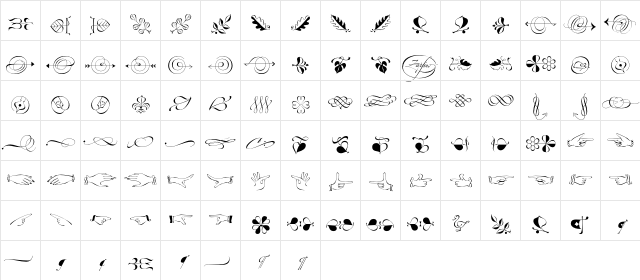
Zapfino Extra LT Ornaments
Design Context for Zapfino Extra LT Typeface
Zapfino Extra LT is built around its visual character rather than neutral utility — its distinctive forms are designed to make an impression at display sizes. The delicate stroke weight brings airiness and refinement to layouts.